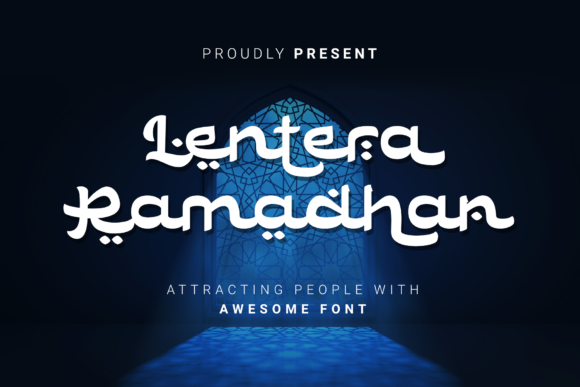
Step into the realm of cinematic grandeur with Lentera Ramadhan, a display font family that ignites your creativity, leaving you spellbound. This enchanting creation by the visionary DUMADI dances upon the horizon of artistic expression, beckoning you to seize every frame of life's captivating narrative.
Experience the allure of a font family meticulously crafted to elevate your storytelling. Lentera Ramadhan's essence lies in its remarkable versatility, seamlessly transforming from the bold drama of film posters to the subtle elegance of wedding invitations. Its carefully rendered curves and flourishes whisper tales of adventure, love, and triumph, capturing the essence of every emotion, scene, and character with exquisite grace.
Immerse yourself in a world where fonts hold the power to ignite imaginations and captivate audiences. Lentera Ramadhan bestows upon you the privilege of creating unforgettable visual experiences, transcending the boundaries of ordinary design. Embark on a cinematic odyssey where every glyph becomes a brushstroke, every letter a scene, and every word a compelling chapter in a story that unfolds before your eyes.
With Lentera Ramadhan, you're not just adding fonts to your design arsenal; you're inviting the power of storytelling to permeate your creative endeavors. Its enchanting aura weaves a tapestry of emotions, drawing viewers into the depths of your artistic vision.